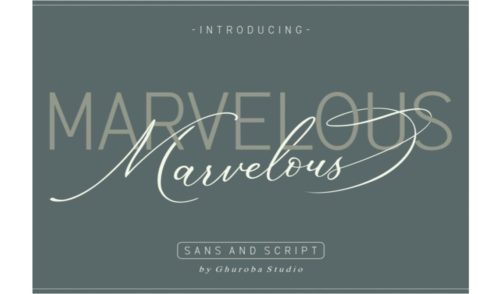
- The Marvelous is a stunning pair of beautiful script and sans fonts.
- It is designed to complement each other with elegant beauty and a contemporary style.
- It’s perfect for branding, invitations, business cards, weddings, logo, quotes, product packaging and much more.
The Marvelous Font Duo, from Ghuroba Studio, is a stunning pair of a beautiful script and a sans serif fonts,.
The Marvelous Font Duo, from Ghuroba Studio, is a stunning pair of a beautiful script and a sans serif fonts.
Perfect for branding, invitations, business cards, weddings, logos, product packaging and more.